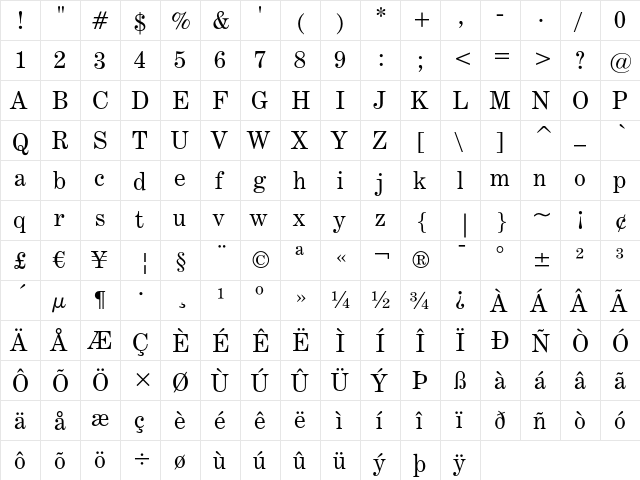
Century Expanded Regular
Design Context for Century Expanded Typeface
Century Expanded takes a measured approach to typography — its balanced proportions and neutral character make it a reliable workhorse for both digital and print work.